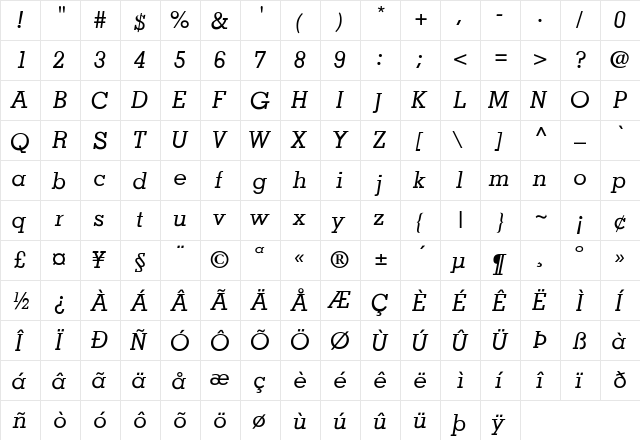
Memphis-MediumItalic Regular
Design Context for Memphis-MediumItalic Typeface
Memphis-MediumItalic offers clean, dependable letterforms without strong stylistic allegiance, making it a practical choice for designers who need flexibility. Its italic angle brings a sense of urgency and motion to the letterforms.
Pro Tip: Try Memphis-MediumItalic for annotation and caption copy alongside an upright companion — the contrast in angle creates a dynamic but ordered typographic system.